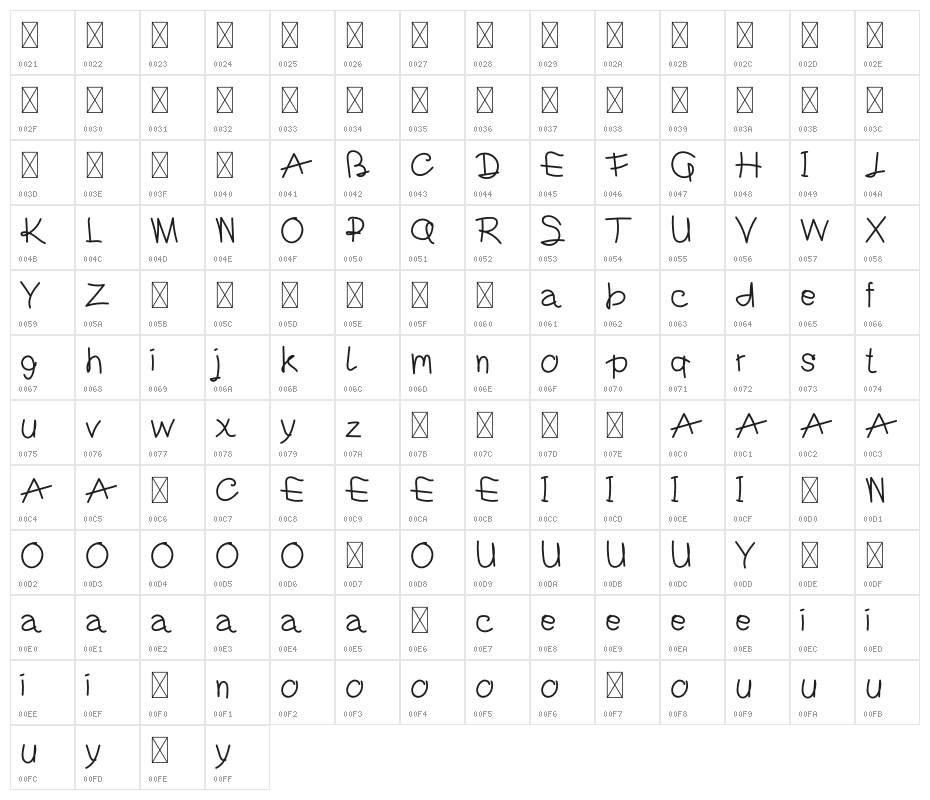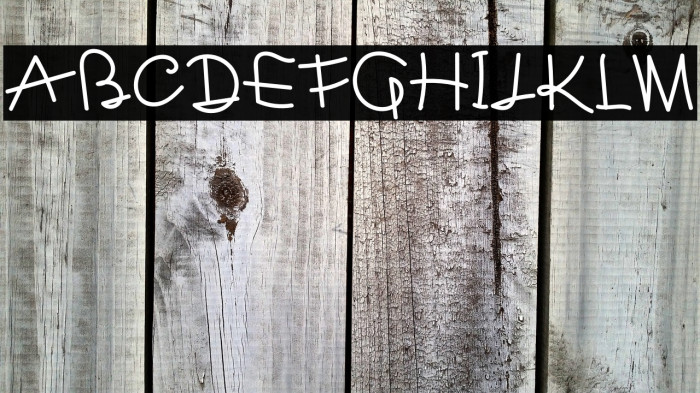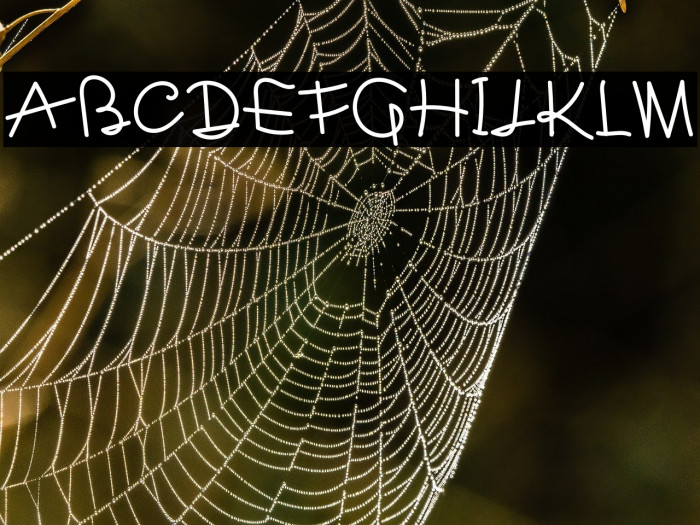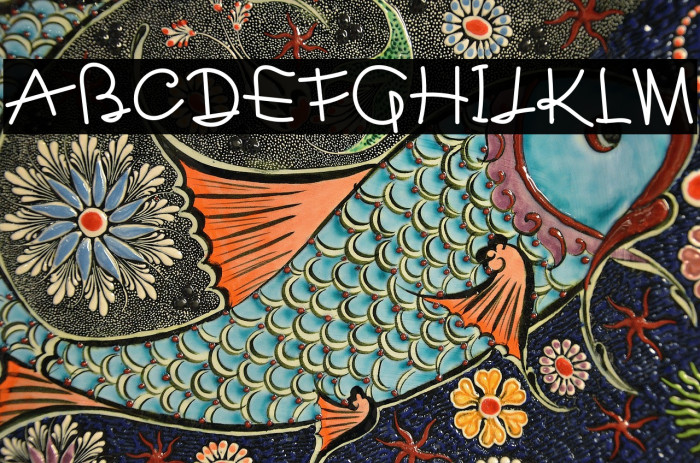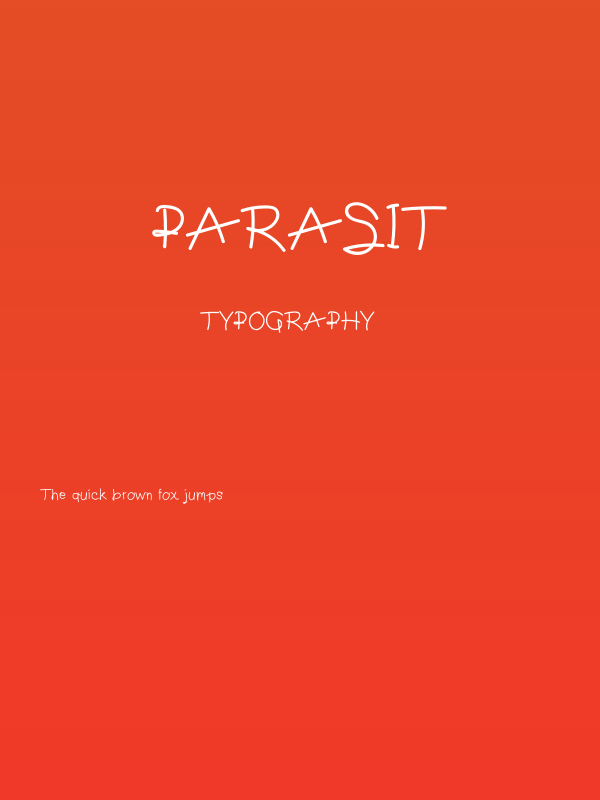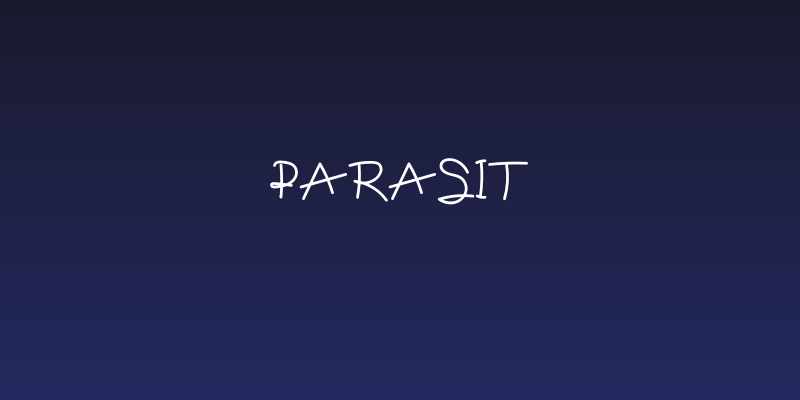
Parasit Font
Parasit Description
This font features a playful and whimsical style, characterized by its irregular, hand-drawn appearance. The uppercase letters have a unique, slightly tilted orientation, giving them a dynamic and lively look. The lowercase letters maintain a consistent flow, with rounded edges and a casual feel. The strokes are uneven, adding to the font's charm and informal nature. This font lacks traditional special characters, emphasizing its decorative purpose rather than functional use in formal writing.
| Proposed Projects | Ideal for children's books, playful branding, greeting cards, and creative posters. |